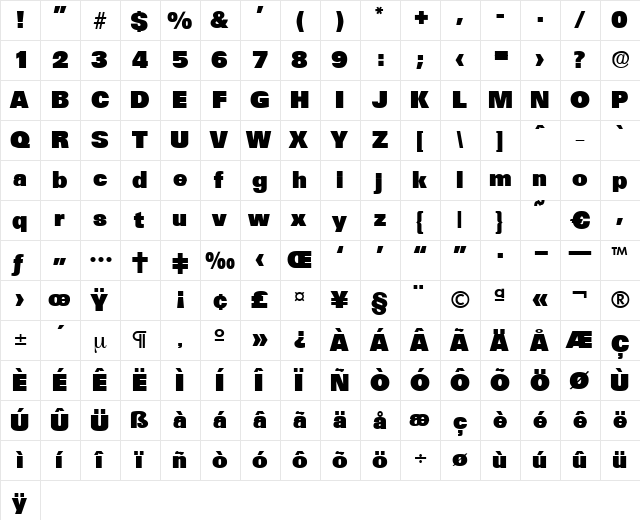
Ultimate-Heavy Regular
Design Context for Ultimate-Heavy Typeface
Ultimate-Heavy offers clean, dependable letterforms without strong stylistic allegiance, making it a practical choice for designers who need flexibility.